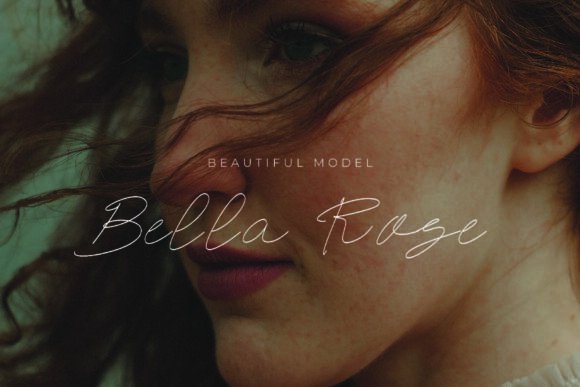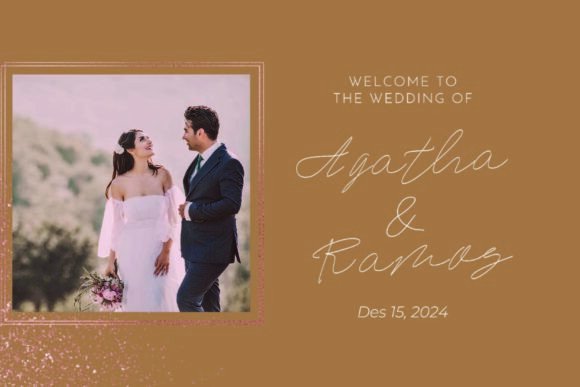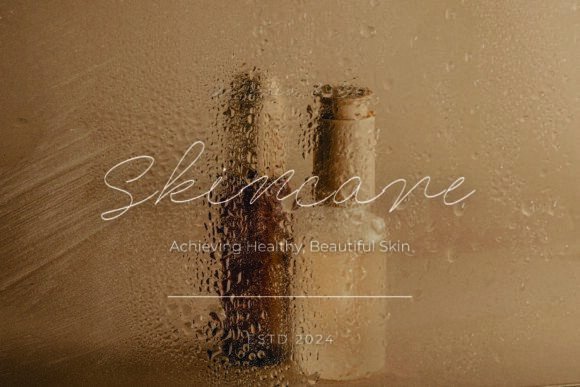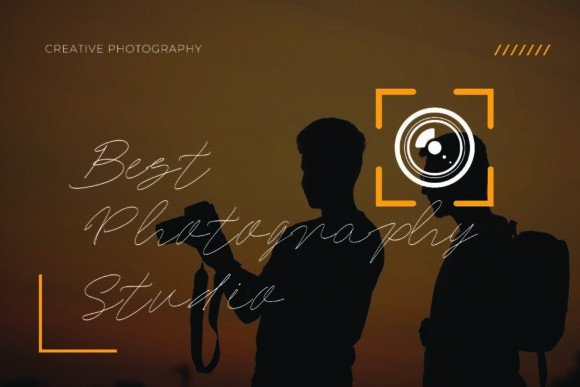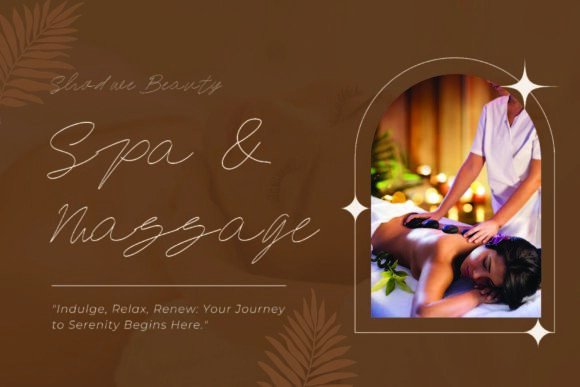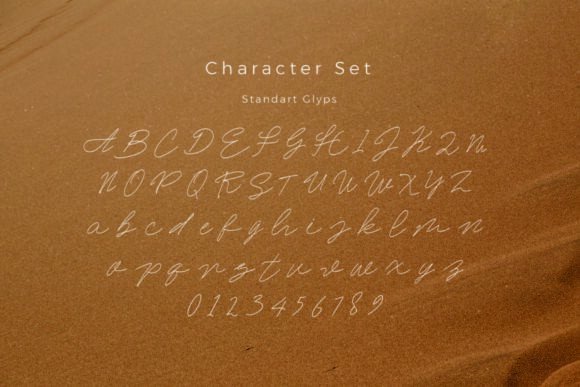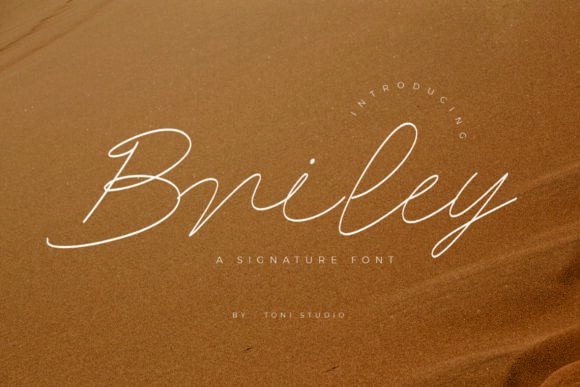
The Elegance of Briley Font: A Designer’s New Best Friend
I still remember the time I was working on a branding project for a high-end fashion client. I had spent hours perfecting the logo design, but something was missing. The font I had chosen just didn’t have the sophistication and elegance that the brand required. That’s when I stumbled upon Briley Font, a sleek and elegant script signature font that instantly elevated my design. In this article, I’ll share my experience with Briley Font, its features, and how to make the most of it in your designs.
An Honest Review of Briley Font
What I Love About Briley Font
• ✨ Delicate, thin outlines that create a modern yet refined look
• ✅ Professional appearance with a touch of elegance
• 💫 Perfect for branding projects, logos, invitations, and designs that require a soft, sophisticated touch
• 🎨 Fine, outline strokes that resemble the touch of a calligraphy pen
While Briley Font is an excellent choice for many designs, there are a few things to keep in mind:
• ⚠️ May not be suitable for body text due to its script nature and delicate outlines
• 🤔 Limited use of uppercase letters, which may require creative workarounds
The Story Behind Briley Font
Briley Font was designed with the intention of creating a modern, elegant script font that captures the sophistication of calligraphy. The designer aimed to create a font that would be perfect for branding projects, logos, and invitations, while maintaining a refined and professional appearance.
Font Name Briley Font
Author ToniStudio
A: Briley Font is best used for branding projects, logos, invitations, and designs that require a soft, sophisticated touch.
A: While Briley Font is an excellent choice for headings and titles, it may not be suitable for body text due to its script nature and delicate outlines.
A: Yes, Briley Font supports OpenType features, such as ligatures and stylistic alternates, which can add more flair to your text.